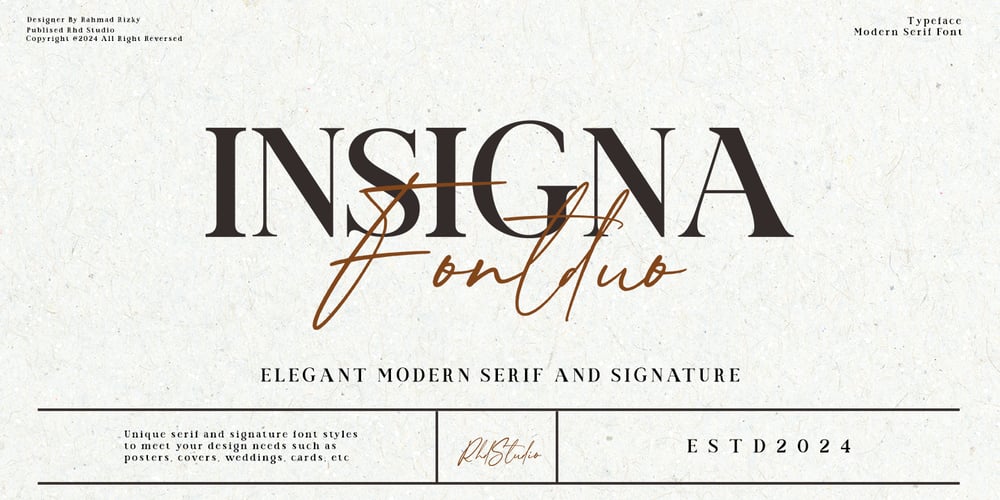
Insigna Signature
Insigna Signature font
Insigna Signature Font Family was designed by Rahmad Rizky and published by Rhd Studio. Insigna Signature contains 2 styles and family package options. Meet Insigna Font Duo: A modern, minimalist sans-serif typeface combined with classy, inky handwriting. With casual elegance, Insigna Font Duo adds a luxurious, clean touch to websites, logos, brand identities, social media quotes, wedding stationery, and anything else you can dream up!Take the hassle out of finding font matches by using Insigna Font Duo, where sans and script are made to match!Thank you very much for visiting my store, and please contact us if you have any questions!-Rhd Studio